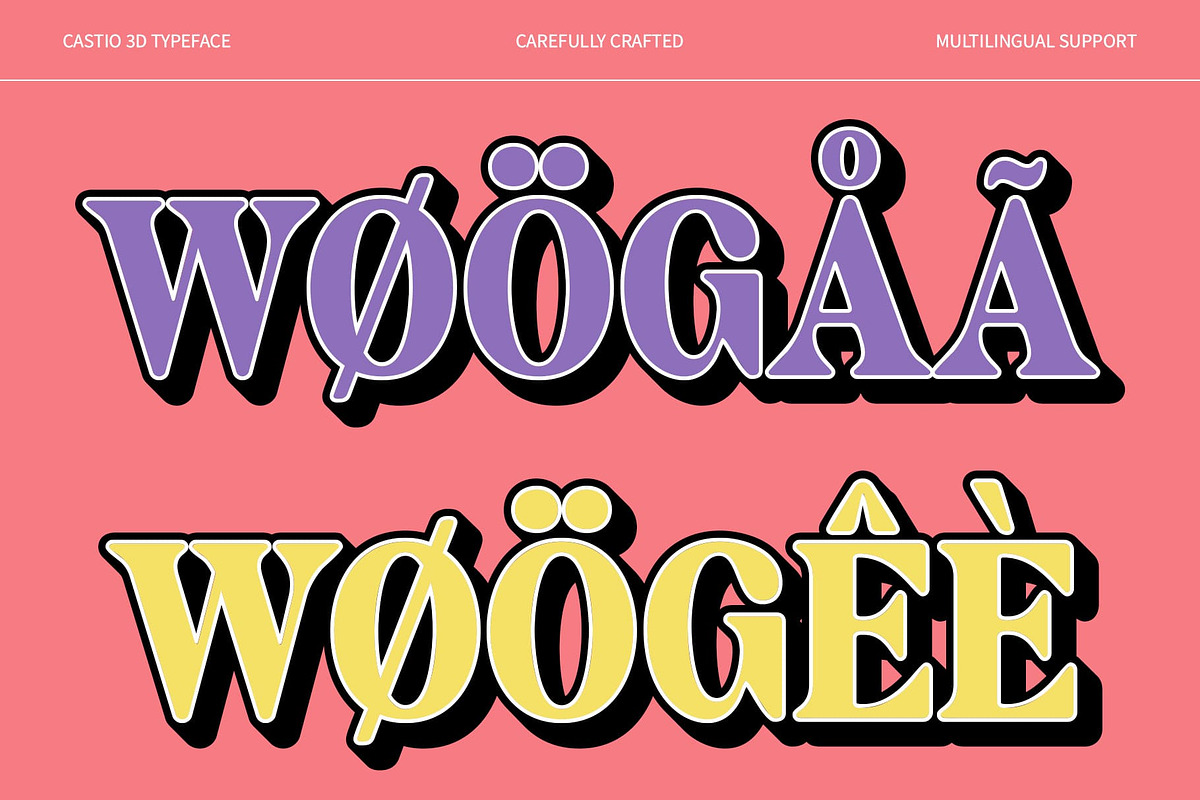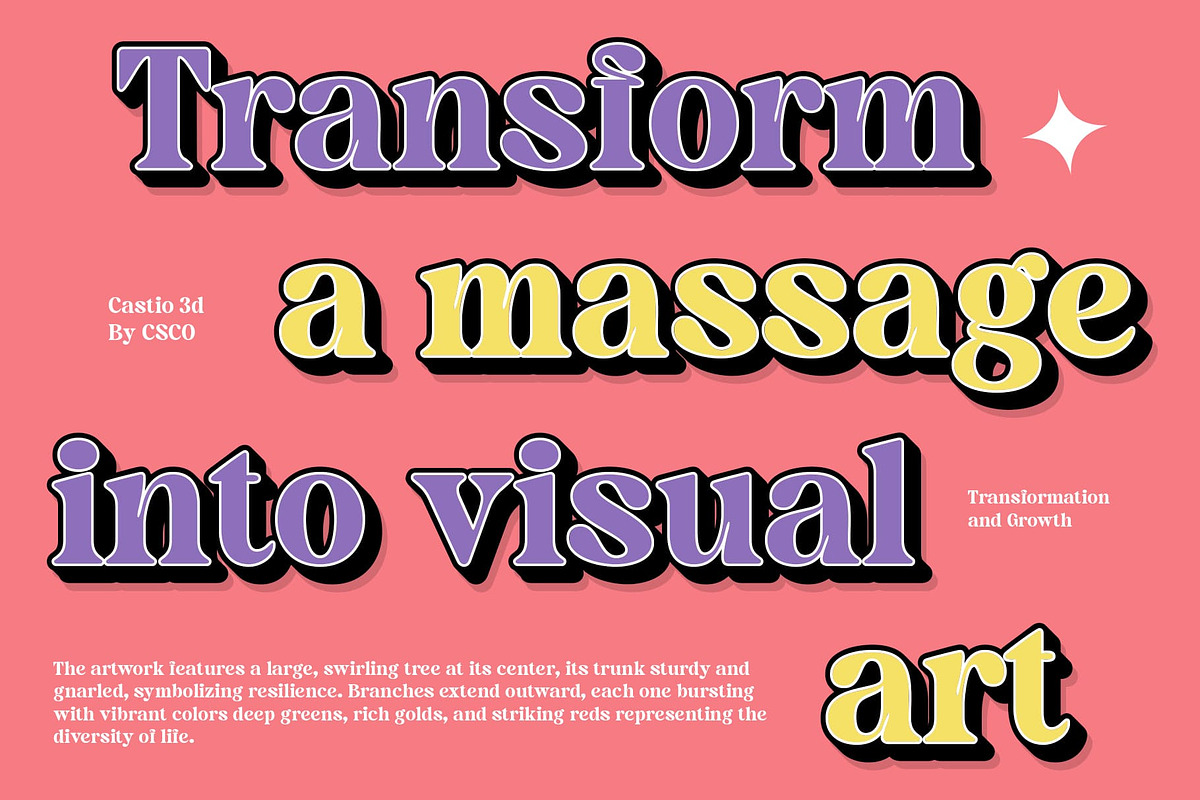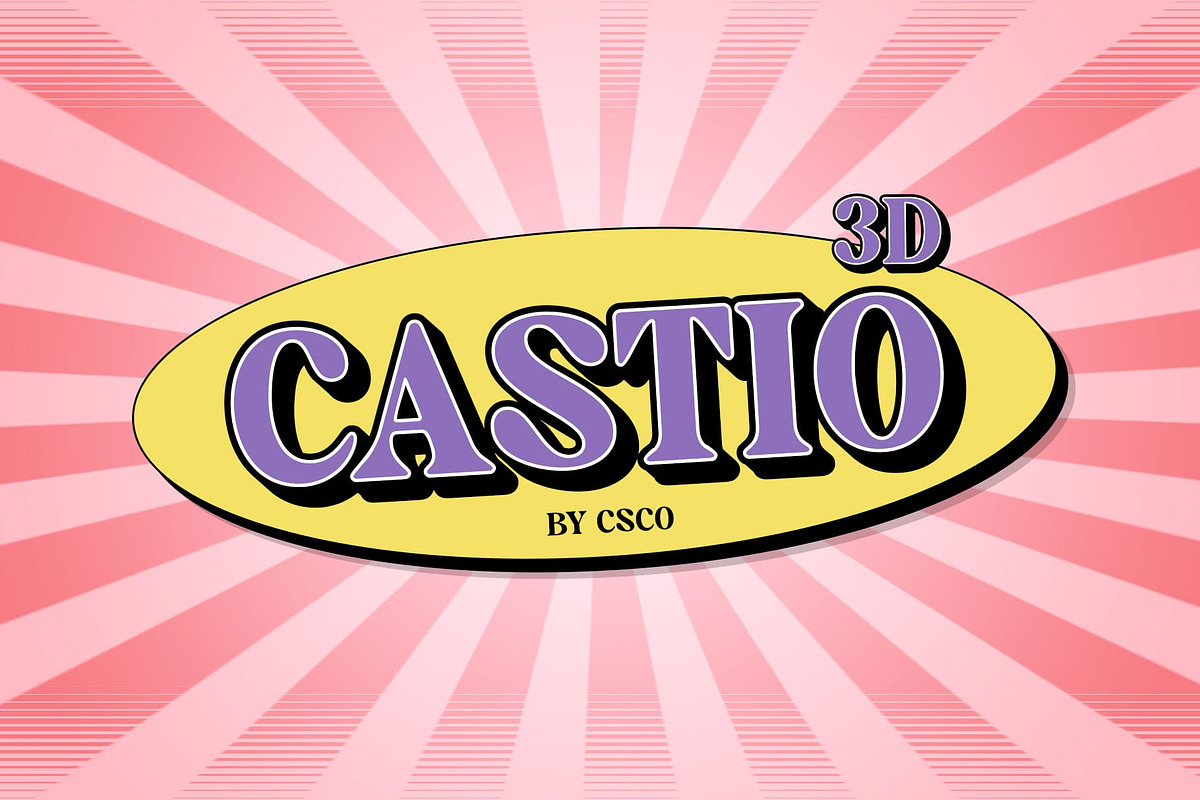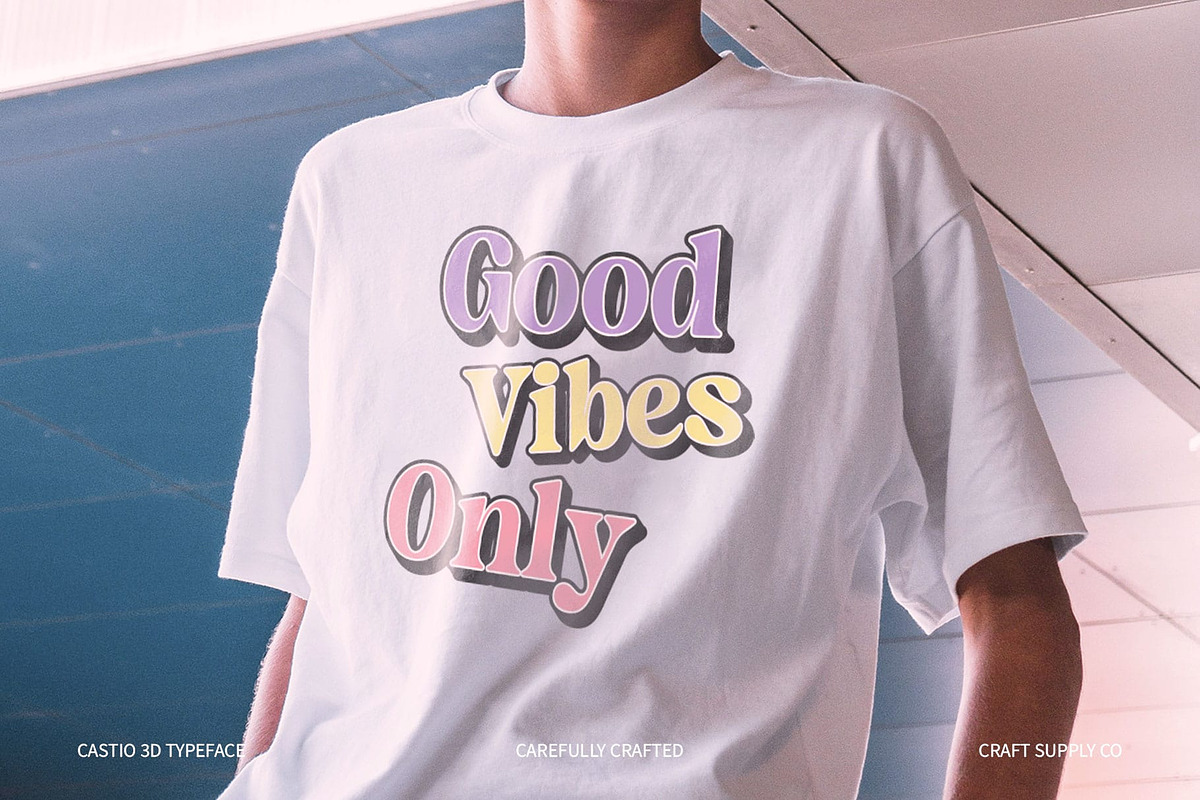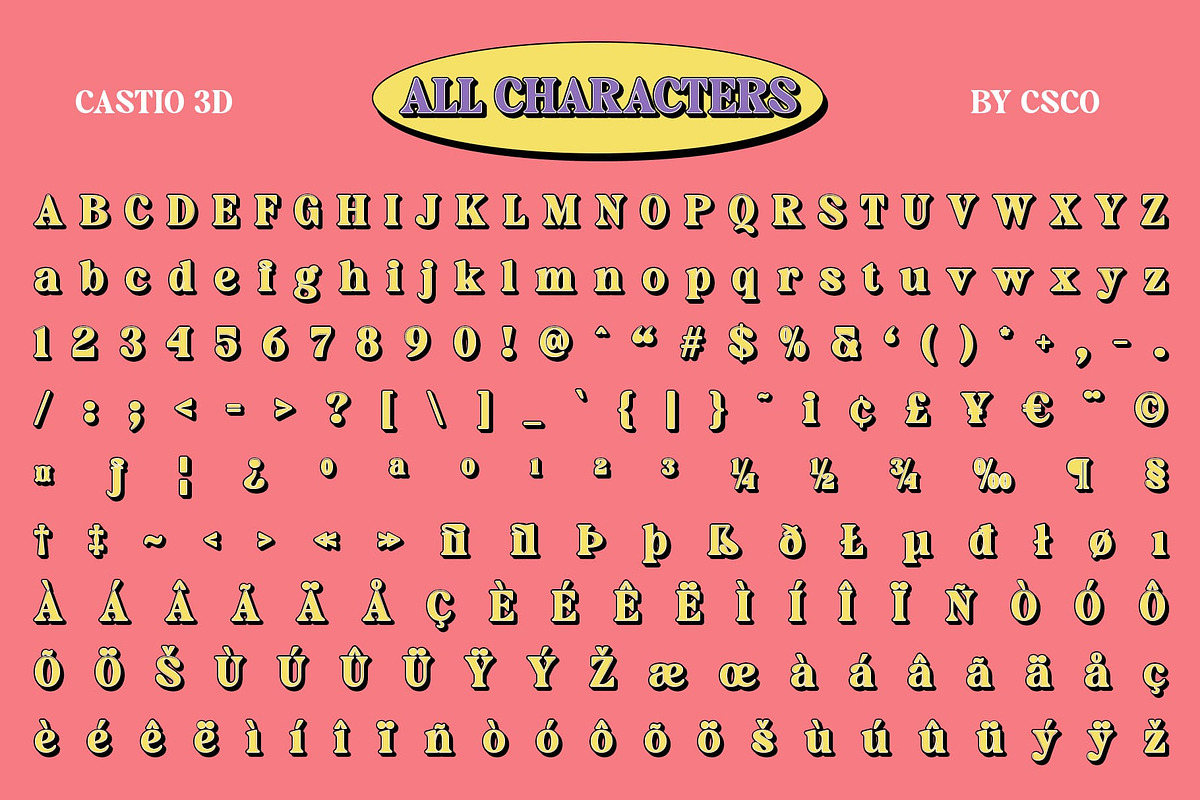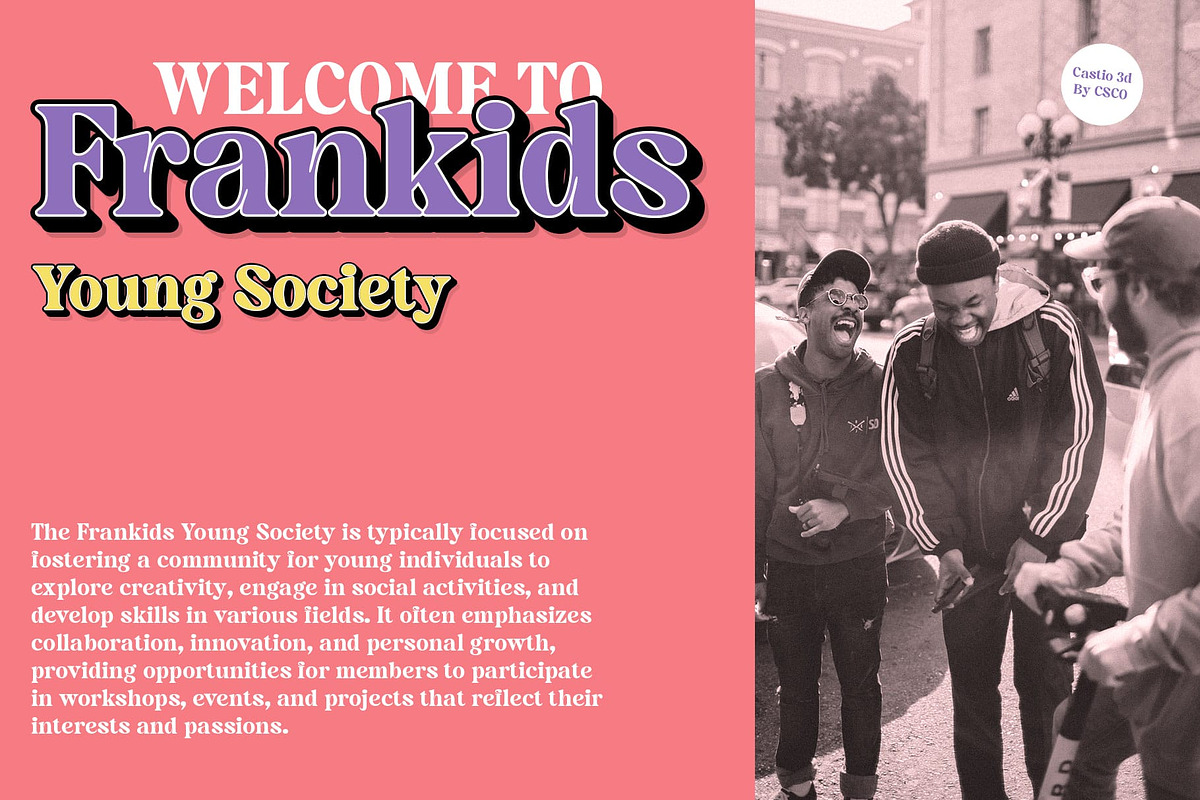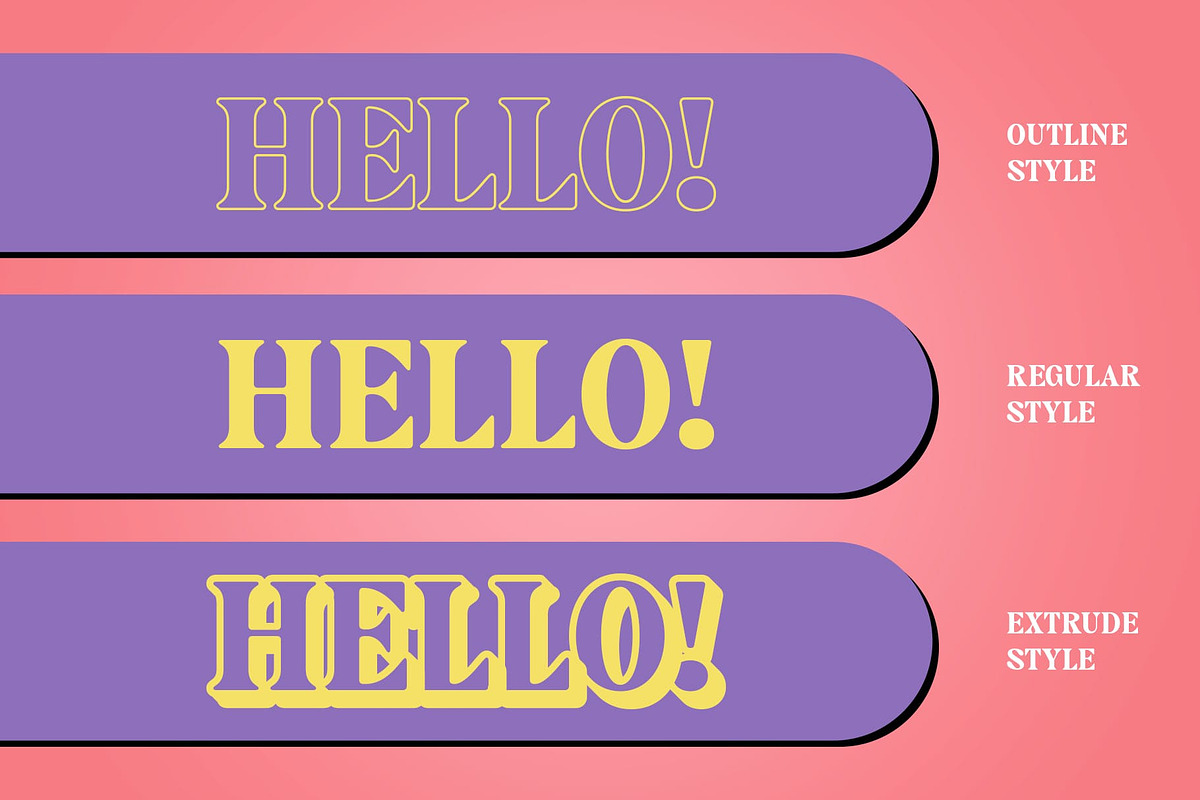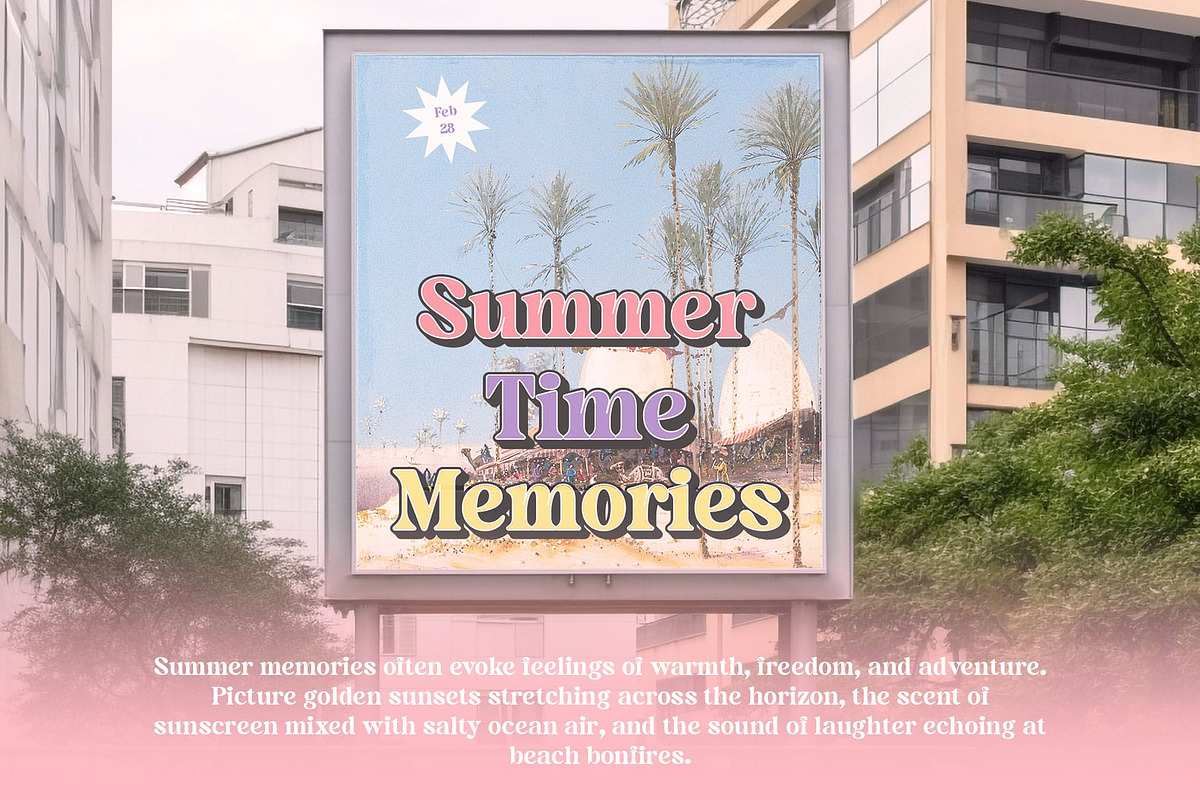
Castio 3D
Castio 3D Font – Bold Classic Serif with Retro Flair and 3D Effects
A Striking Blend of Nostalgia and Modernity Castio 3D is a bold classic serif font that exudes the charm of the 90s with a modern twist. Its retro vibe, combined with traditional serif details, creates a unique design that is both nostalgic and daring. The bold letterforms capture attention, making it ideal for projects that aim to blend vintage aesthetics with contemporary design.
Dynamic 3D Effects for Added Depth What sets Castio 3D apart is its engaging 3D effect, which brings an extra layer of depth and dimension to the text. This feature transforms simple letters into dynamic, almost sculptural forms, making the font stand out in any design context. Whether used in print or digital formats, the 3D effect adds an exciting, interactive visual experience that draws viewers in and enhances the overall impact.
Perfect for Branding, Posters, and Packaging Castio 3D is versatile enough to be used across various design applications, from bold branding projects and vibrant posters to eye-catching product packaging. Its combination of vintage serif elegance and modern 3D innovation makes it an excellent choice for any design that seeks to fuse the old with the new. The font’s striking appearance ensures that your message is delivered with a powerful visual punch.
- Castio Regular
- Castio Outline
- Castio Extrude Right
- Castio Extrude Left